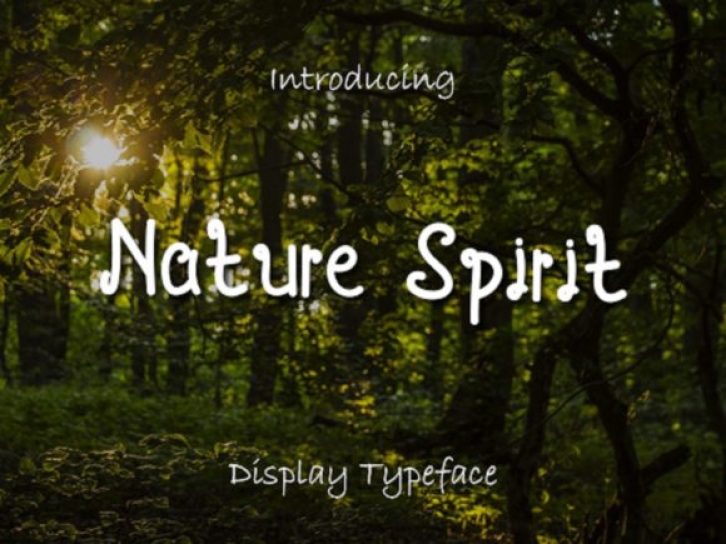
Nature Spirit is a chic, refined script font that emanates sophistication and elegance. Its stylish alternates and ligatures make this font the perfect match for any project.